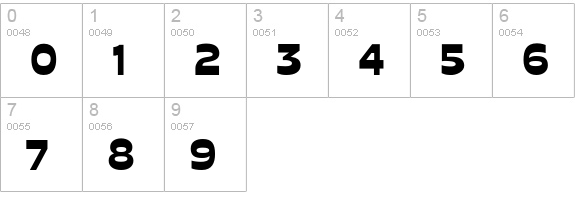
Global font is a versatile and modern typeface that will surely make your designs stand out. With its clean lines and elegant curves, this font is perfect for a wide range of projects, from branding to editorial design. The best part is that Global font is completely free to download at FontsMarket.com, making it accessible to everyone looking to add a touch of sophistication to their work. So go ahead and give your designs a global appeal with this stunning font today!